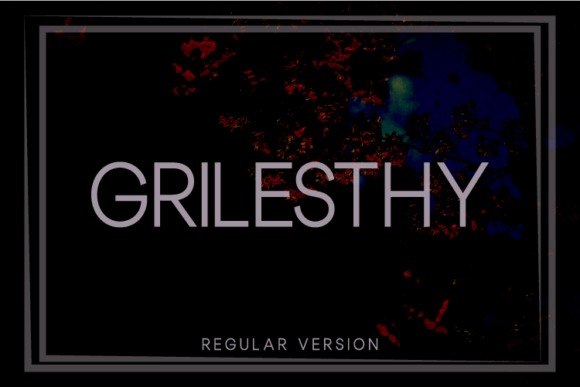
When the Perfect Font Strikes Inspiration
Have you ever been in the middle of a creative project, staring at a blank screen, waiting for that elusive spark of inspiration to strike? It’s a feeling many designers know all too well. But what if that spark was sparked by a font? For us, it was the Grilesthy Regular Font that changed everything. This modern and casual sans serif font has a way of making your designs feel approachable and friendly, making it the perfect addition to any project.
The Grilesthy Regular Font is designed to be versatile, suitable for headlines of all sizes, as well as blocks of text that require maximum and minimum variations. With 10 different weights ranging from thin to extra black, you can choose the perfect weight to suit your design needs.
Grilesthy Regular Font Key Features
- Font Family: Grilesthy Regular, a modern sans-serif font designed for digital use.
- Unique Characteristic: Grilesthy Regular features a distinctive x-height and a rounded edge on the terminals, giving it a friendly and approachable feel.
Grilesthy Regular Font Review
I’ve had the chance to work with Grilesthy Regular Font on a few projects, and I must say it’s a decent addition to any designer’s toolkit. ✨ The font’s clean lines and straightforward aesthetic make it perfect for corporate materials, like business cards and brochures. Its high legibility ensures that your message gets across without any distractions.
One of Grilesthy Regular’s greatest strengths is its versatility. It works well in both print and digital formats, and its neutrality means it won’t clash with other design elements. ✨ It’s also quite easy to pair with other fonts, which is a bonus when you’re working on a project with multiple typefaces.
What Could Be Improved:
- ⚠️ Limited expressiveness: While Grilesthy Regular is great for straightforward communication, it can feel a bit bland when used for more creative or emotive projects.
- ⚠️ Not ideal for body text: Due to its plain nature, Grilesthy Regular may not be the best choice for large blocks of text, as it can be tiring to read.
Overall, Grilesthy Regular Font is a solid choice for designers who need a reliable, easy-to-read font for corporate or informational materials. While it may not be the most exciting or expressive font out there, it gets the job done efficiently and effectively.
Getting the Most Out of Grilesthy Regular
For optimal results, use Grilesthy Regular font for headings and titles, and pair it with a clean sans-serif font for body text.
Grilesthy Regular font is ideal for use in branding, logos, and corporate identities.